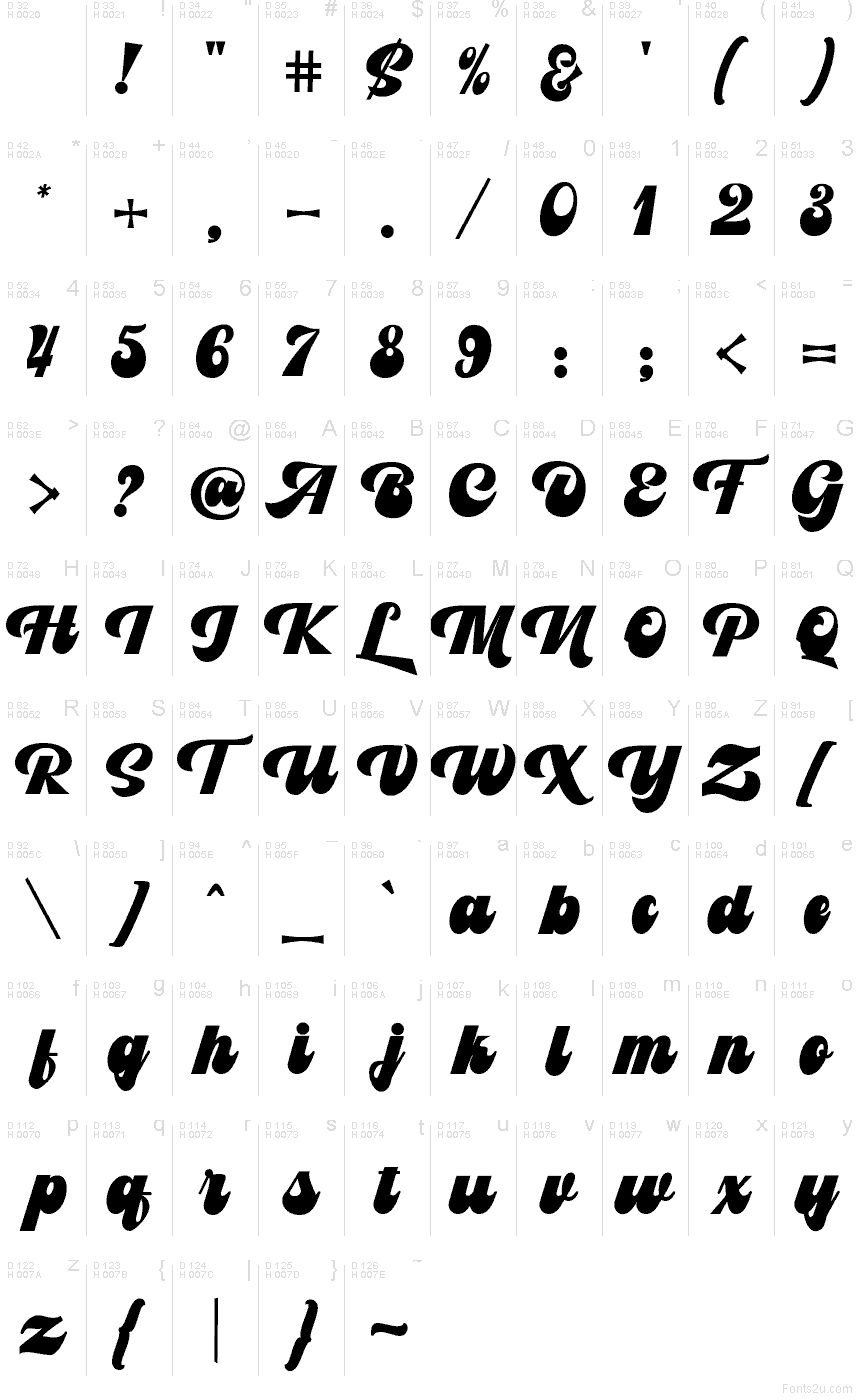
PradisRetro
Pradis Retro font by LetterFreshStudio is a free retro brush typeface that looks like it was painted in one confident, inky swoop. Thick, glossy strokes curve and loop into each other, giving every word a bold, sign-painter energy that feels straight off a vintage storefront or diner window. The letters sit snugly together, with smooth connections and rounded edges that create a rich, flowing texture at larger sizes.
Using Pradis Retro, this free font really shines on nostalgic branding where you want warmth and swagger in the same breath. It works beautifully for logos, cafe menus, packaging, posters, t-shirt graphics, and social media titles that need that hand-lettered, throwback charm. Pair it with a simple, clean sans serif for small text and let Pradis Retro handle the big, attention-grabbing headlines.